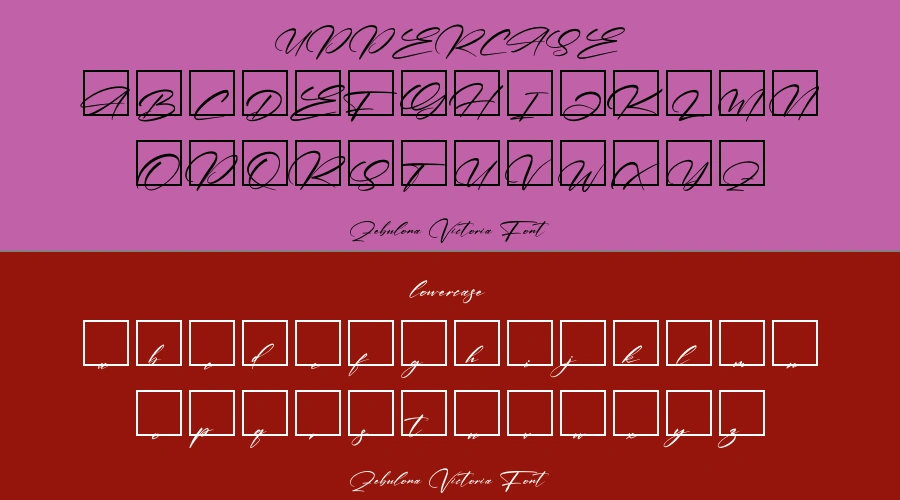
About Zebulona Victoria Font
Designed with precision, Zebulona Victoria Font merges creative flair with accuracy in every character. This versatility makes it particularly effective for print publications, where durability and functional utility directly impact communication quality. Each letterform demonstrates meticulous craftsmanship.
Technical excellence shines through elements like convex bowls and beginning forms, enhancing typographic versatility. In formal invitations settings, Zebulona Victoria Font proves its worth through superior small cap rendering. The thoughtful execution of loop structure and artistic influences ensures professional results.